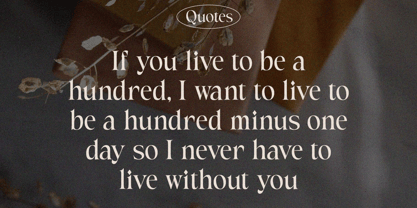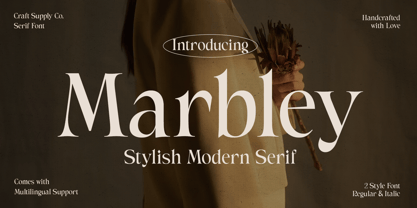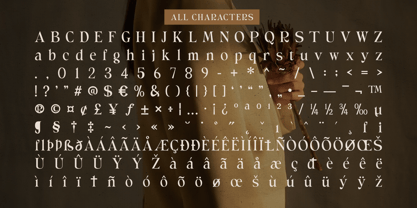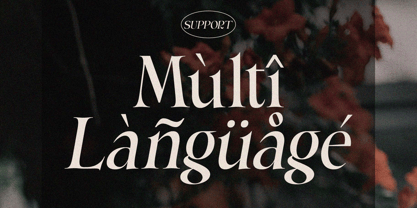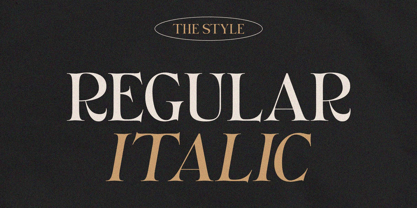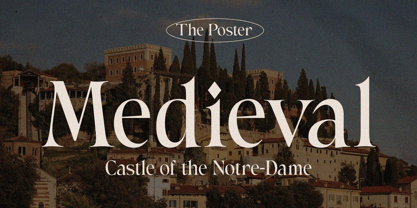
Marbley
by Craft Supply Co
The Marbley Font Family was designed by Trio Nazzar Saputra, Wahyu Hadi Yuana and published by Craft Supply Co. Marbley contains 2 styles and family package options. More about this family
Marbley is a stylish modern serif font that provides a striking contrast to its surroundings. The exquisiteness of Marbley’s strokes and elegantly pointed serifs provide a striking visual effect, no matter what kind of text you’re using it for. Whether it’s for a website headline, or just some simple text on your page, Marbley will make your work look better than ever!.
Designers: Trio Nazzar Saputra, Wahyu Hadi Yuana
Foundry: Craft Supply Co